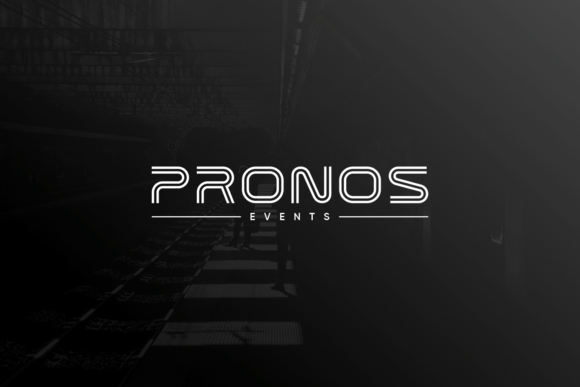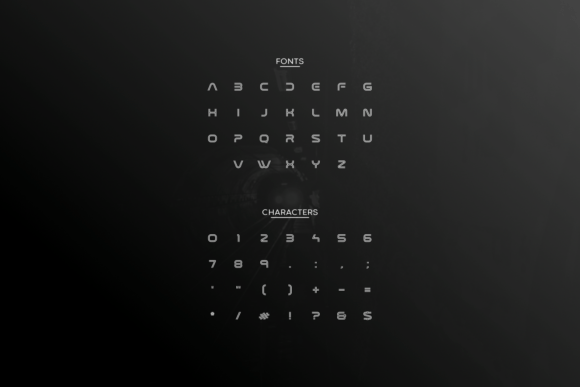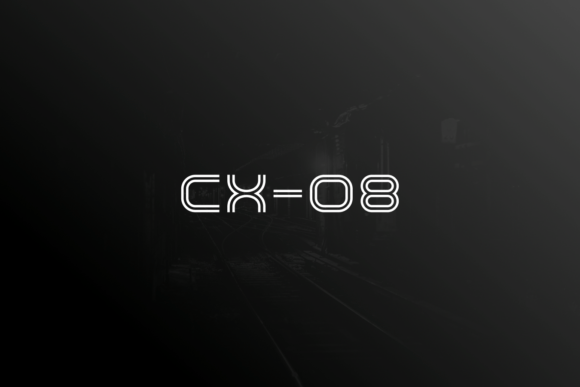
Introducing Dropaso Font: Elevate Your Designs with a Modern Twist
In the world of typography, fonts play a crucial role in conveying messages, expressing emotions, and creating visual identities. For designers, crafters, and creative enthusiasts, finding the perfect font can be a daunting task. However, if you’re looking for a modern, uniquely-shaped display font that can elevate your creations, look no further than Dropaso Font. In this article, we’ll dive into the features, benefits, and uses of Dropaso Font, and explore how it can become an incredible asset to your font library.
What is Dropaso Font?
Dropaso Font is a contemporary, display font designed to make a statement. Its unique shape and modern aesthetic make it perfect for a wide range of applications, from branding and advertising to packaging and digital media. With its clean lines, precise curves, and distinctive features, Dropaso Font is sure to grab attention and leave a lasting impression.
Key Features of Dropaso Font
- Unique Shape: Dropaso Font boasts a one-of-a-kind design that sets it apart from other fonts. Its distinctive shape makes it perfect for creating eye-catching headlines, titles, and captions.
- Modern Aesthetic: With its sleek lines, precise curves, and contemporary feel, Dropaso Font is ideal for modern designs that require a fresh and stylish approach.
- Versatility: Whether you’re working on a branding project, creating social media graphics, or designing a website, Dropaso Font can adapt to any style or theme.
- High-Quality Design: Crafted with precision and attention to detail, Dropaso Font ensures a high level of legibility and readability, making it perfect for both digital and print applications.
Benefits of Using Dropaso Font
So, why should you choose Dropaso Font for your next project? Here are just a few benefits of incorporating this amazing font into your design workflow:
- Stand Out from the Crowd: With Dropaso Font, you can create designs that stand out from the competition. Its unique shape and modern aesthetic ensure that your message gets noticed.
- Enhance Brand Identity: Dropaso Font can help you establish a strong brand identity. Its distinctive features make it perfect for creating custom logos, icons, and typography that reflect your brand’s personality.
- Save Time and Effort: With Dropaso Font, you can save time and effort in your design process. Its versatility and adaptability mean you can use it across multiple projects and applications.
- Elevate Your Creations: Whether you’re a designer, crafter, or creative enthusiast, Dropaso Font can help you take your creations to the next level. Its high-quality design and unique features ensure that your work looks professional and polished.
Who Can Benefit from Dropaso Font?
Dropaso Font is an excellent addition to any designer’s or crafter’s font library. Here are just a few examples of who can benefit from this amazing font:
- Graphic Designers: Whether you’re working on branding projects, creating social media graphics, or designing websites, Dropaso Font can help you create stunning visual effects.
- Crafters and Makers: If you’re a crafter or maker, Dropaso Font can help you add a professional touch to your handmade products, packaging, and marketing materials.
- Digital Artists: Dropaso Font can be used to create amazing digital art, from illustrations and graphics to animations and videos.
- Marketing and Advertising Professionals: With Dropaso Font, you can create attention-grabbing headlines, titles, and captions that drive engagement and conversions.
| Font Name | Dropaso Font |
| Author | Letterna |
In conclusion, Dropaso Font is a modern, uniquely-shaped display font that can elevate any creation. Its key features, benefits, and versatility make it an excellent addition to any designer’s or crafter’s font library. Whether you’re working on a branding project, creating social media graphics, or designing a website, Dropaso Font is sure to make a statement. So why wait? Download Dropaso Font today and take your designs to the next level!